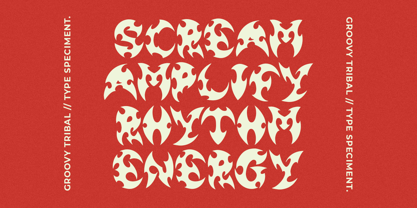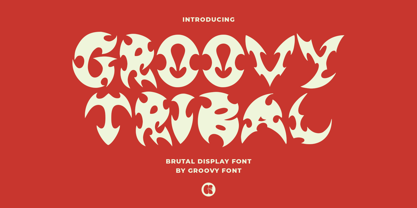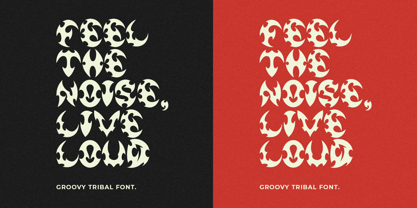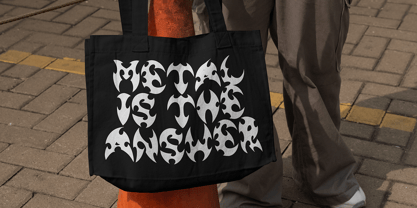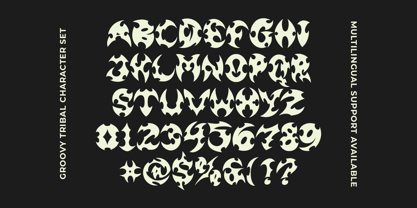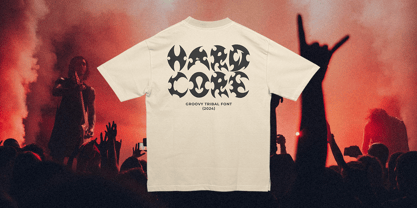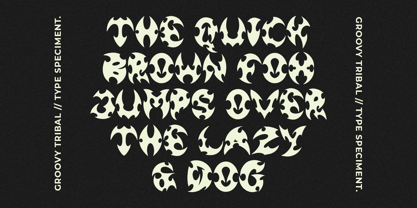
Groovy Tribal
by Groovy Font
The Groovy Tribal Font Family was designed by Ahmad Ginanjar Riyadi and published by Groovy Font. Groovy Tribal contains 1 styles. More about this family
Groovy Tribal is a Brutal Display Font is a fierce and eye-catching font. With its eccentric and spirited design, this font blazes like fire with a bold and inspiring power.
This font is ideal for creating bold and impactful designs such as posters, banners, album covers, and any project that requires a strong and daring visual presence.
- Uppercase, Lowercase, Numeral, Punctuation & Multilingual.
Designers: Ahmad Ginanjar Riyadi
Foundry: Groovy Font